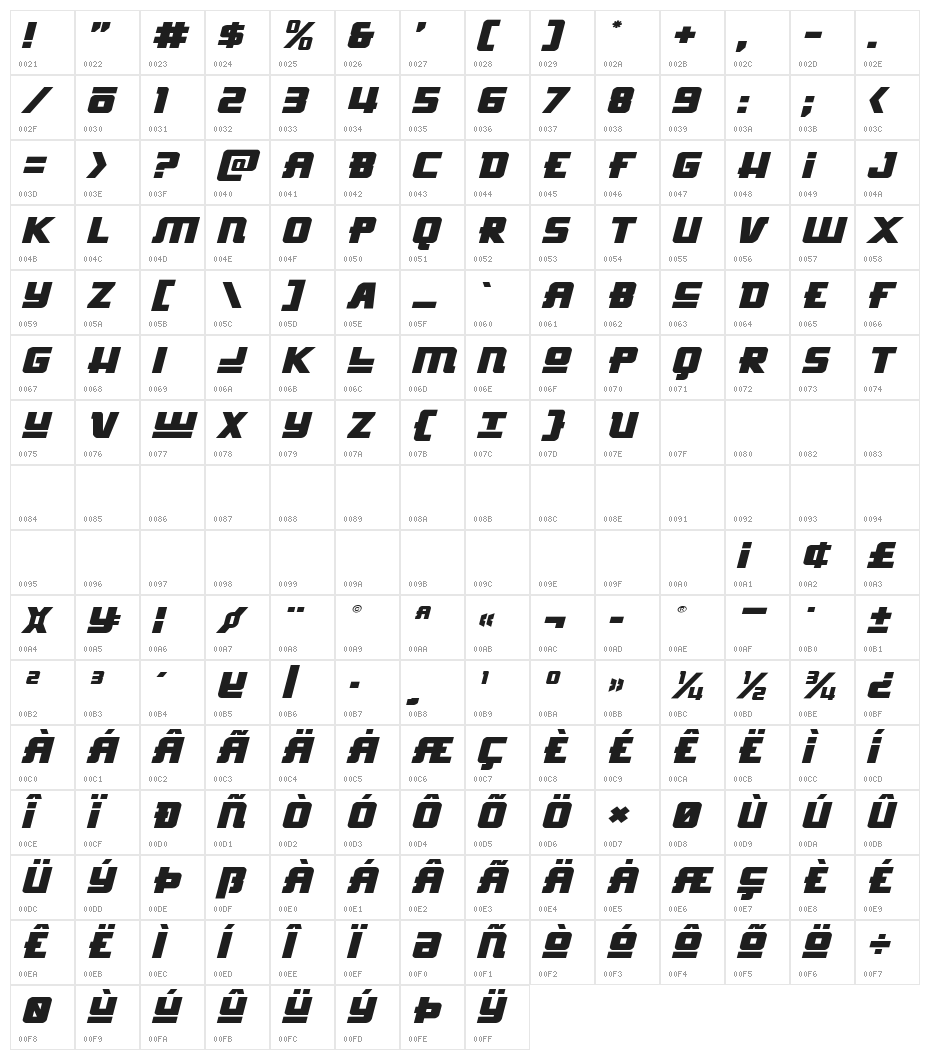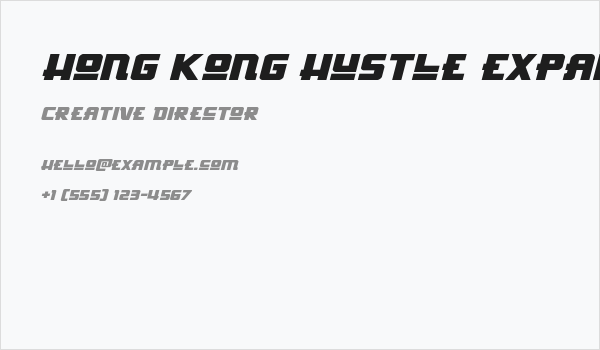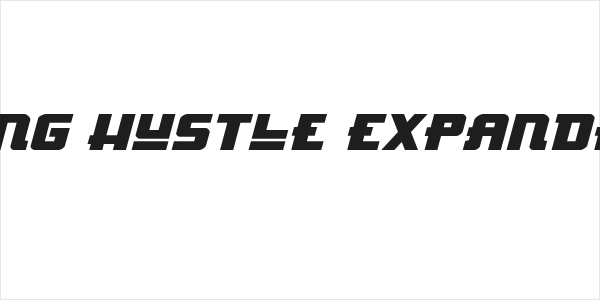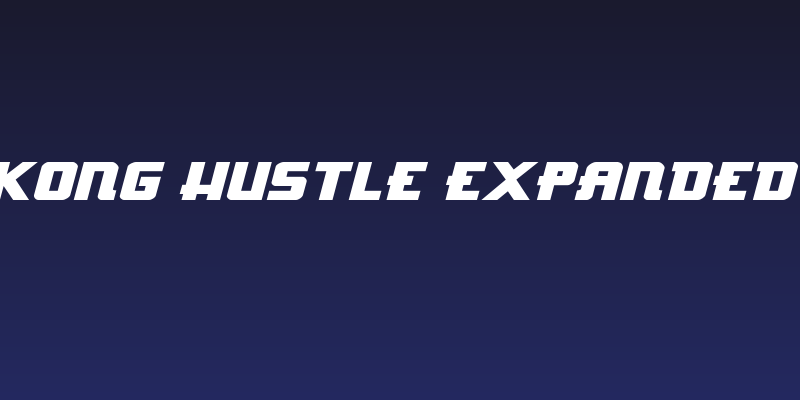
Hong Kong Hustle Expanded Italic Font
Hong Kong Hustle Expanded Italic Description
This font features a bold and dynamic design with an expanded and italicized style. The characters are heavily stylized with sharp angles and a futuristic appearance, making it stand out with a strong presence. The uppercase and lowercase letters maintain a consistent width, contributing to a uniform look. The numerals and special characters are equally bold, ensuring they complement the overall design. This font's unique style is ideal for projects that require a modern and edgy aesthetic.
| Proposed Projects | Perfect for branding, posters, video game titles, and any project needing a modern, edgy look. |